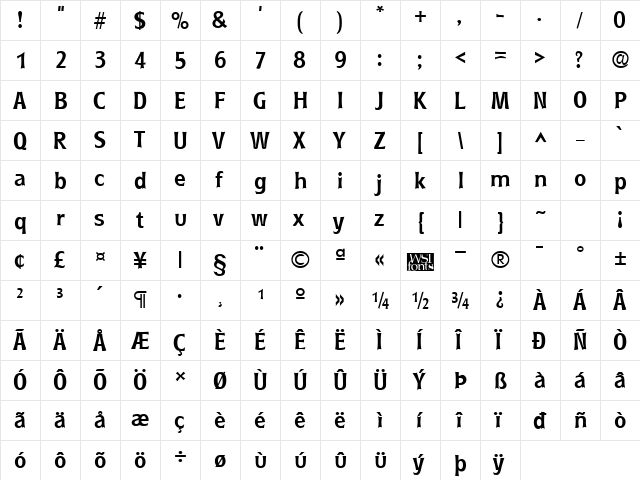
Rynders Bold
Design Context for Rynders Typeface
Rynders offers clean, dependable letterforms without strong stylistic allegiance, making it a practical choice for designers who need flexibility. Its bold stroke weight gives it real presence on the page.